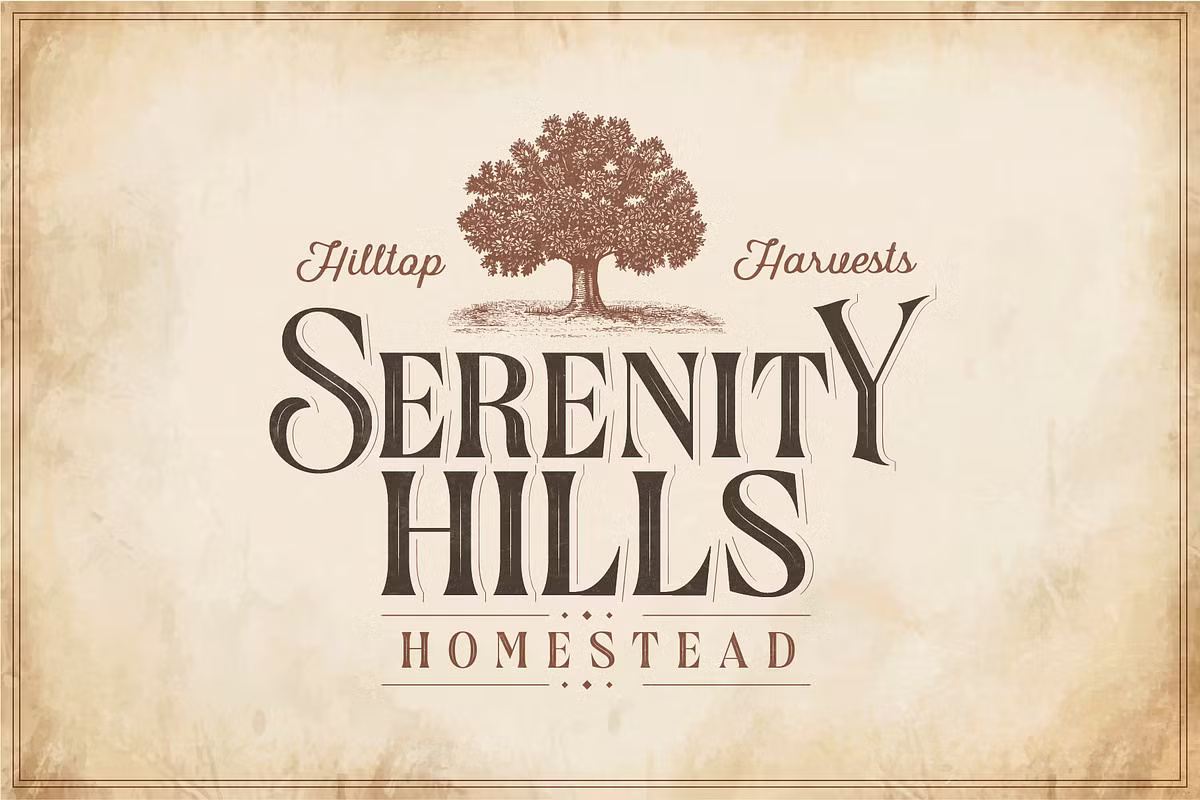
Devil’s Cut is a modern vintage serif font that comes in two styles: Regular and Shadow. This allows you to create both a standard layered effect and a shadowed layered effect within a single typeface. Additionally, it features a subtle inline detail that enhances its overall design.
Ideal for crafting logos with a classic aesthetic, Devil’s Cut is perfect for labels, packaging, stationery, editorial design, branding, and various graphic design projects.